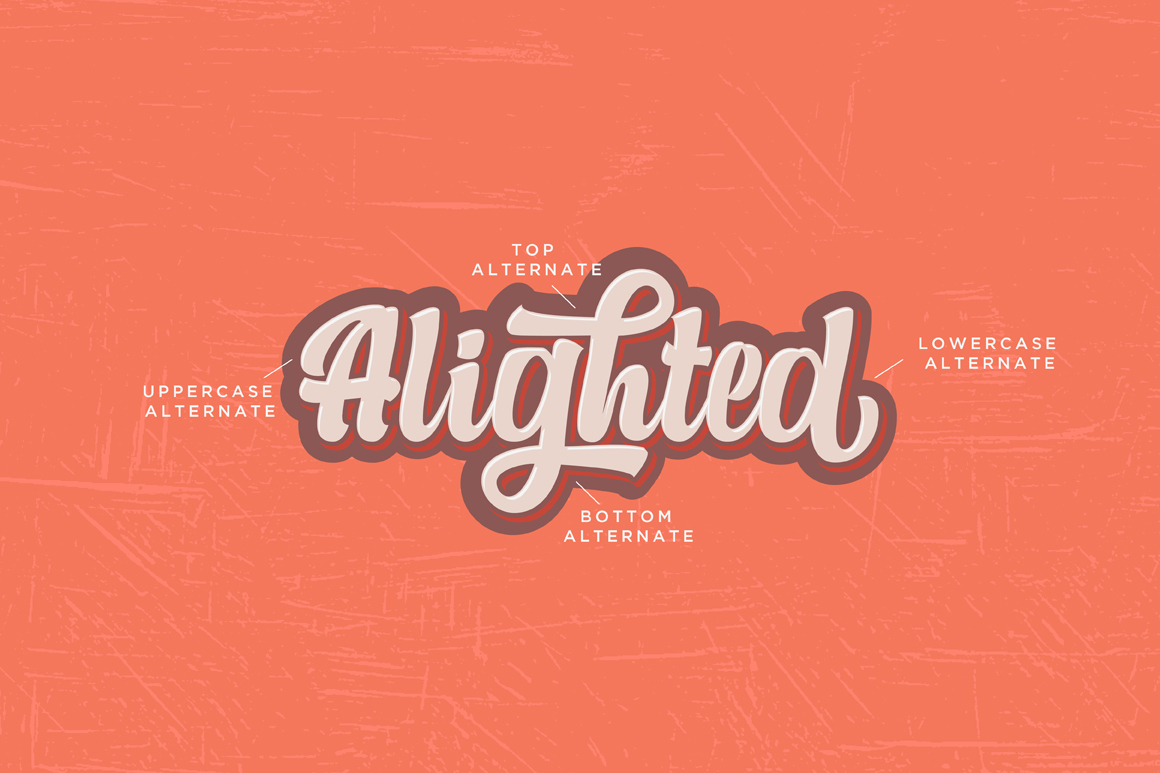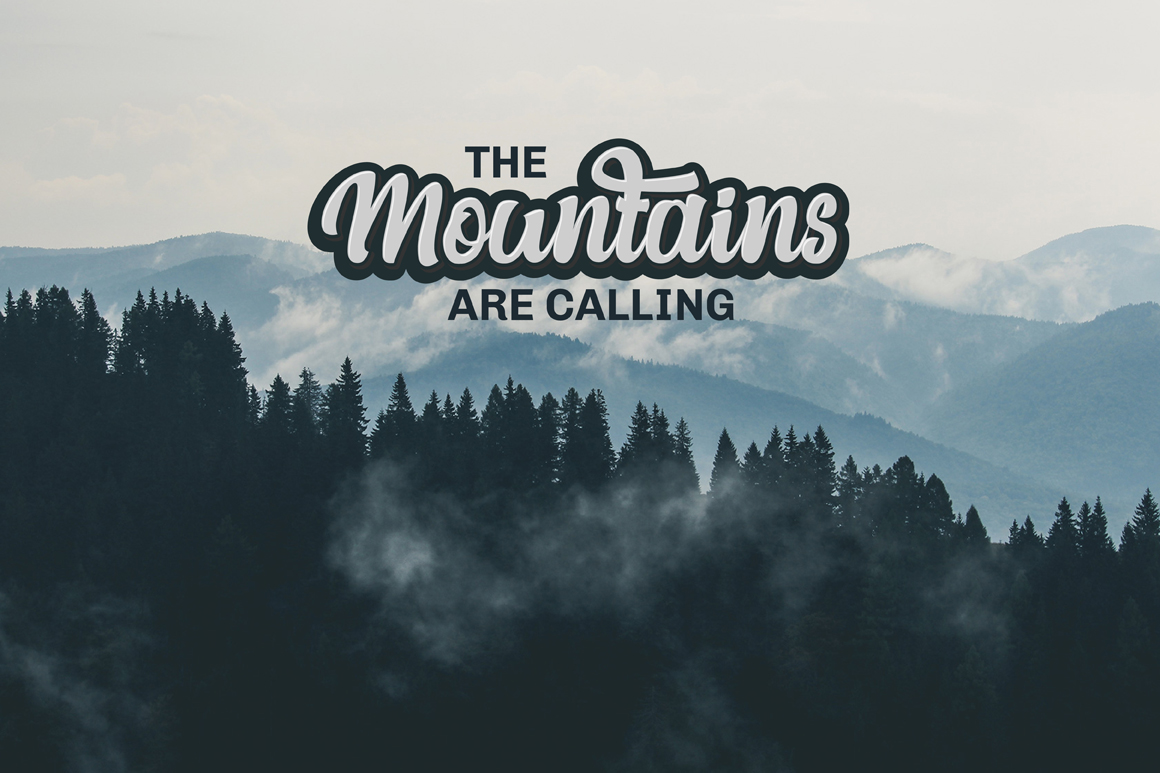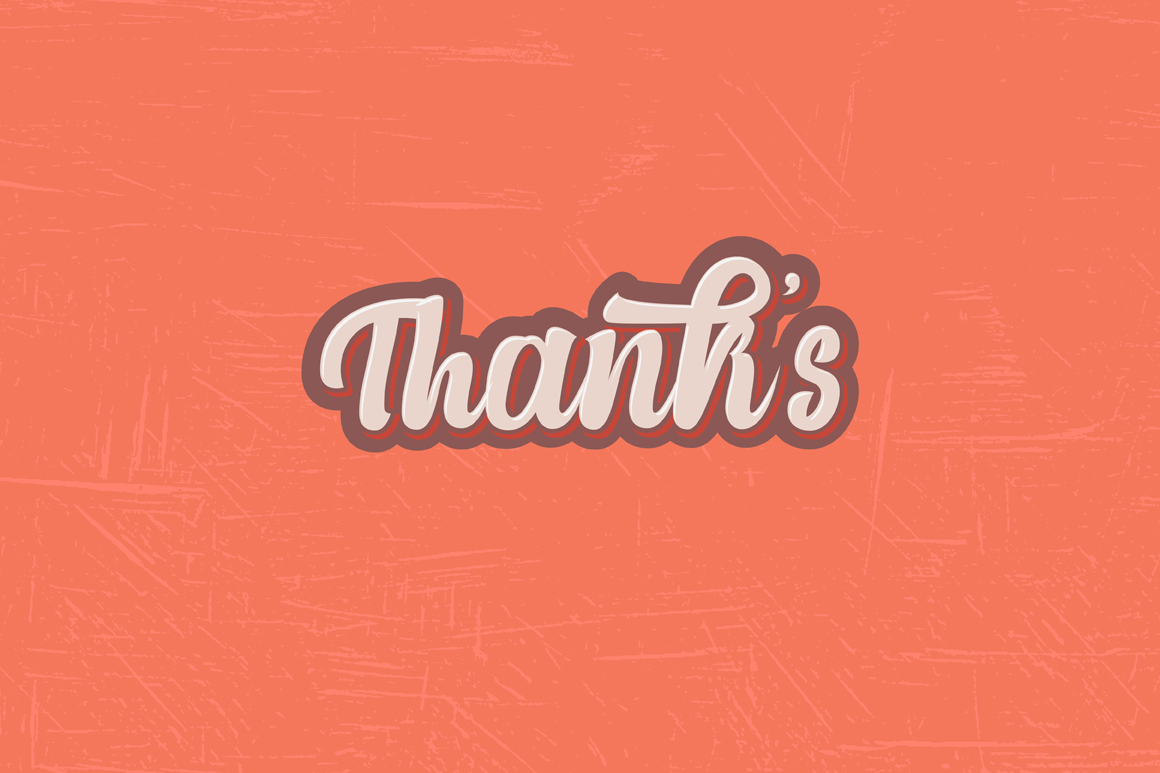
The Alexandria Script Font: A Designer’s Dream Come True
I’ll never forget the time I was working on a project for a luxury brand, and I was tasked with creating a stunning invitation that would make the client swoon. As I scrolled through my font library, I couldn’t find the perfect script font that would elevate the design. That’s when I stumbled upon the Alexandria Script font, and it was love at first sight! 💕
With its elegant strokes and beautiful craftsmanship, I knew I had found the perfect fit. In this article, I’ll share with you my experience with the Alexandria Script font, its features, and how to make the most of it in your designs.
- ✨ Gorgeous script font with elegant strokes and beautiful craftsmanship
- ✅ 4 styles to choose from, making it versatile for various design projects
- 💯 Perfect for display purposes, such as titles, headings, and invitations
- 🎨 Highly legible, even at smaller font sizes
While the Alexandria Script font is a stunning addition to any design project, there are a few things to keep in mind:
- ⚠️ Limited use of lowercase letters, which may require creative workarounds
- 🤔 Some characters may not be suitable for body text, due to their elegant and cursive nature
A Practical Guide: Using Alexandria Script in Your Designs
The Story Behind Alexandria Script
The Alexandria Script font was designed with elegance and sophistication in mind. Inspired by the ancient city of Alexandria, the font’s creator aimed to capture the essence of luxury and refinement. With its beautiful strokes and highly legible design, the Alexandria Script font is perfect for designers who want to add a touch of elegance to their projects.
| Font Name | Alexandria Script Font |
| Author | Debut Studio |
Q: What is the Alexandria Script font best used for?
A: The Alexandria Script font is best used for display purposes, such as titles, headings, and invitations. Its elegant strokes and beautiful craftsmanship make it perfect for luxury brands and formal designs.
Q: Can I use the Alexandria Script font for body text?
A: While the Alexandria Script font is highly legible, it’s not recommended for body text due to its elegant and cursive nature. However, you can experiment with smaller font sizes and creative workarounds to make it work.
Q: Is the Alexandria Script font available in multiple styles?
A: Yes, the Alexandria Script font comes in 4 styles, making it versatile for various design projects.